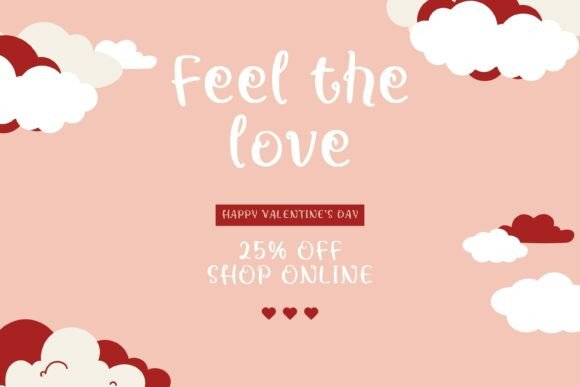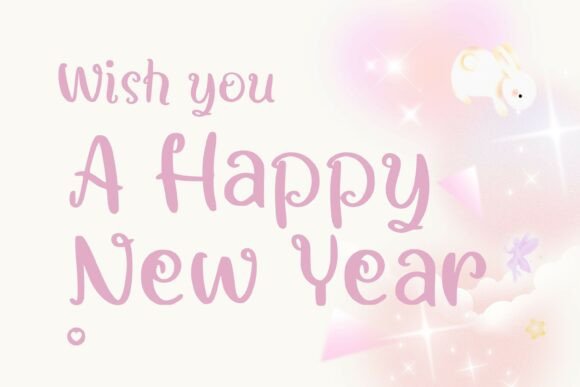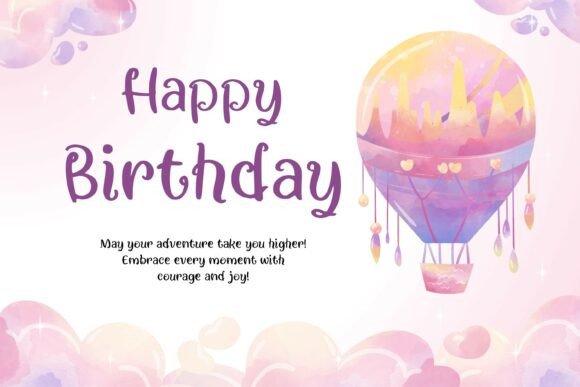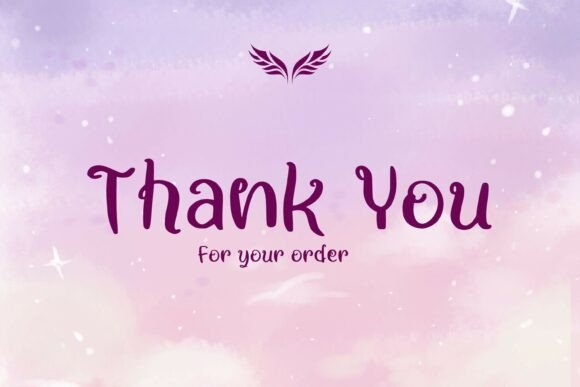
Discover the Enchanting Dreamy Chotaf Font: Elevate Your Greetings with Whimsy and Charm
In the realm of typography, few fonts manage to capture the essence of whimsy and elegance as effortlessly as the Dreamy Chotaf font. This enchanting typeface, adorned with its distinctive curls, brings a touch of magic to any project it touches. Whether you’re a designer looking to add a unique flair to your creations or a crafter aiming to make your messages stand out, Dreamy Chotaf is the perfect tool to transform your specialized greetings into extraordinary pieces of visual poetry.
The Allure of Dreamy Chotaf
At first glance, the Dreamy Chotaf font exudes an air of distinction. Its whimsical curls and elegant lines are not just visually appealing; they also carry a certain charm that can make any greeting feel special. This font is not just about conveying a message; it’s about creating a moment. A moment that stands out from the ordinary, a moment that feels elevated and special. With Dreamy Chotaf, your greetings will never be ordinary again.
Dreamy Chotaf is more than just a font; it’s a creative tool designed to help designers and crafters bring their ideas to life. For designers, it offers a unique way to add personality to any project, from wedding invitations to branding materials. For crafters, it provides a means to personalize gifts, cards, and other handmade items with a touch of elegance and whimsy. The versatility of Dreamy Chotaf makes it an ideal choice for a wide range of projects.
Transforming Messages into Visual Poetry
What sets Dreamy Chotaf apart is its ability to turn simple messages into visual poetry. Each letter and curl is designed to convey emotion and add depth to your words. Whether you’re crafting a heartfelt greeting, a celebratory message, or a simple note, Dreamy Chotaf ensures that your sentiment is delivered with elegance and charm. It’s not just about what you say; it’s about how you say it. With Dreamy Chotaf, every message becomes a visual expression of your feelings.
Key Features of Dreamy Chotaf
- Whimsical Design: The font’s distinctive curls and elegant lines make it stand out.
- Elegance and Charm: Adds a touch of sophistication and charm to any project.
- Versatility: Suitable for a wide range of projects, from digital designs to handmade crafts.
- Emotional Depth: Helps convey emotions and add depth to your messages.
Dreamy Chotaf is more than just a font; it’s a gateway to creating extraordinary greetings and messages. Its unique blend of whimsy and elegance makes it the perfect choice for designers and crafters looking to add a special touch to their projects. With Dreamy Chotaf, you can transform your messages into visual poetry that captures the essence of your sentiment. Say goodbye to ordinary greetings and hello to a world of charm and distinction.